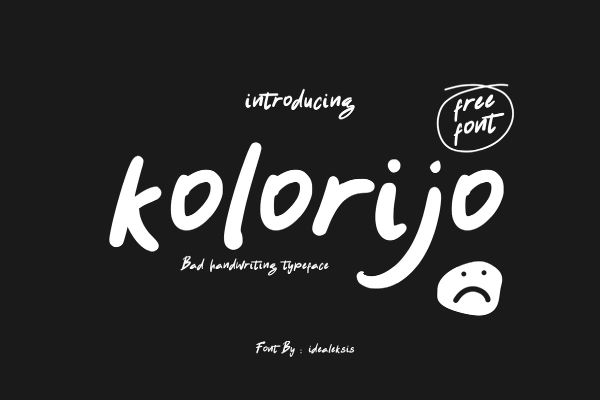
Kolorijo Font
Kolorijo font by Ideal Eksis is a free brush font with an energetic, hand-lettered quality that feels spontaneous and expressive — its letterforms carrying the texture and rhythm of a real brush stroke without sacrificing legibility or control. That balance between rawness and readability makes it highly adaptable across a wide range of creative applications: editorial headlines, branding, packaging, social media graphics, event posters, and any design context where the typography needs to feel alive and in motion. A thoroughly generous release with a standard commercial license. Available completely free for personal and commercial use.